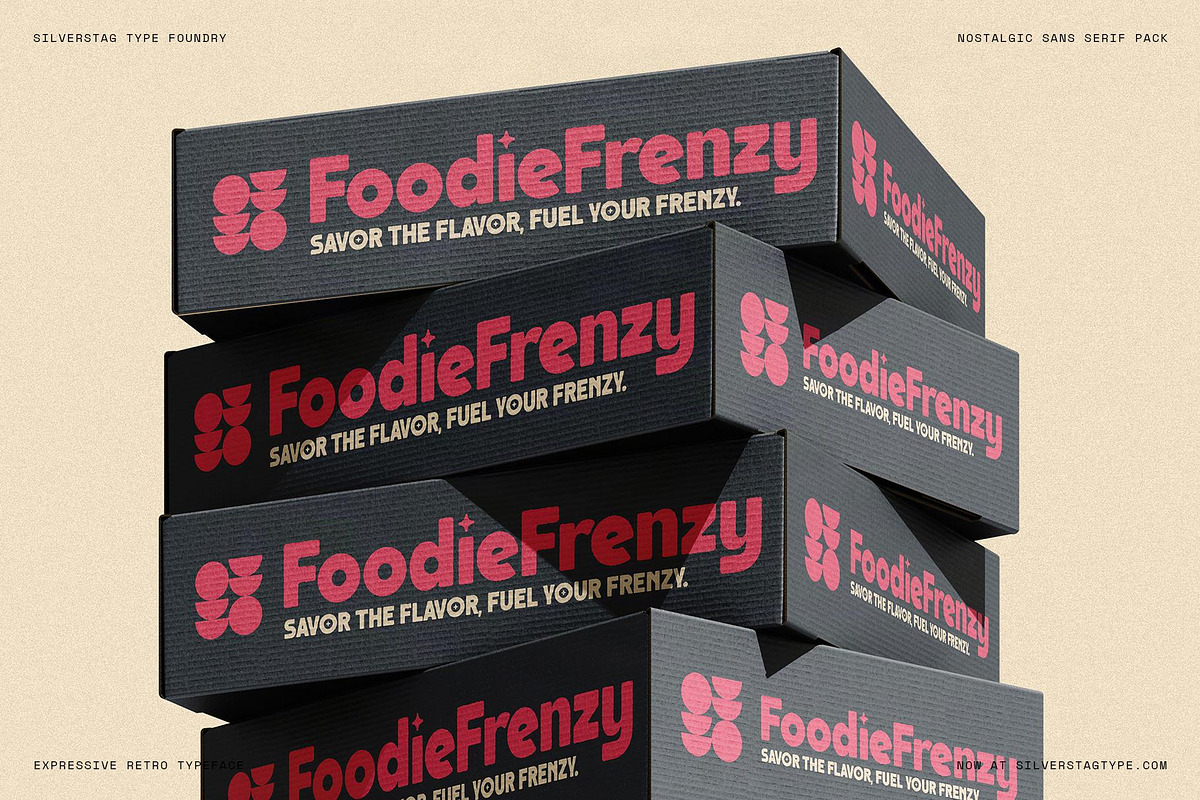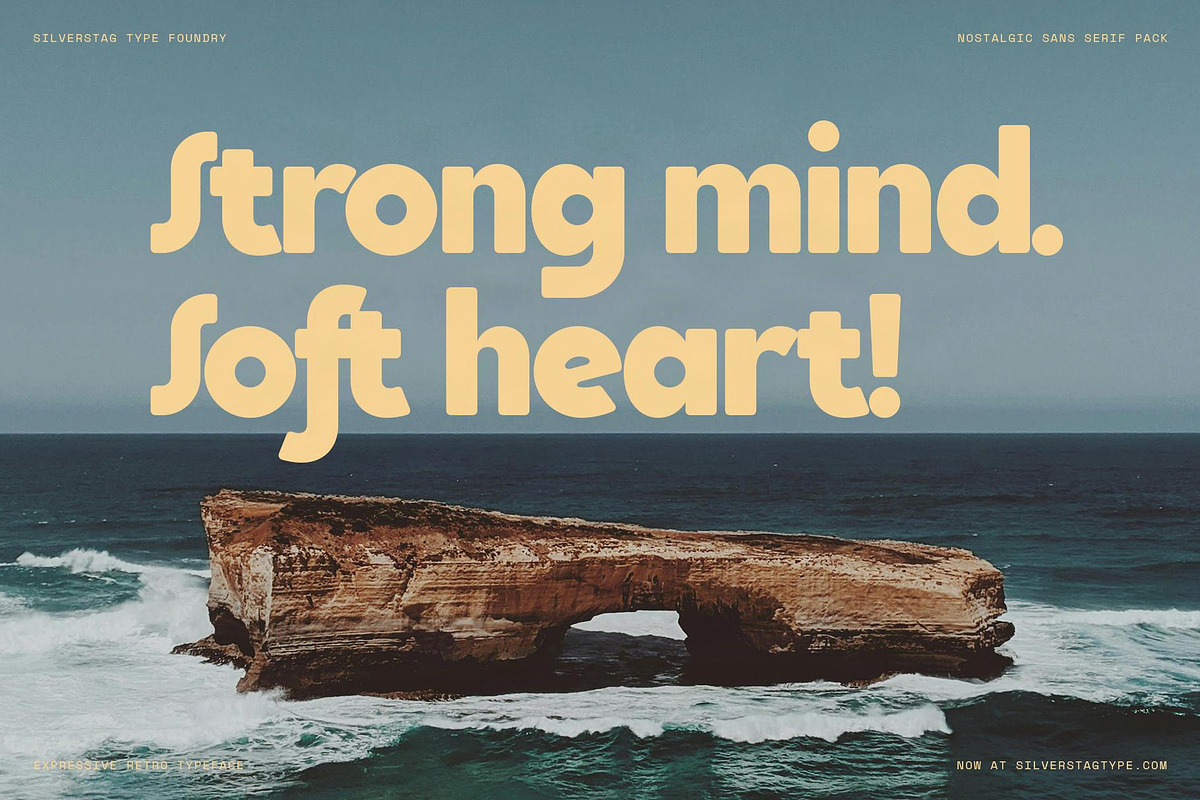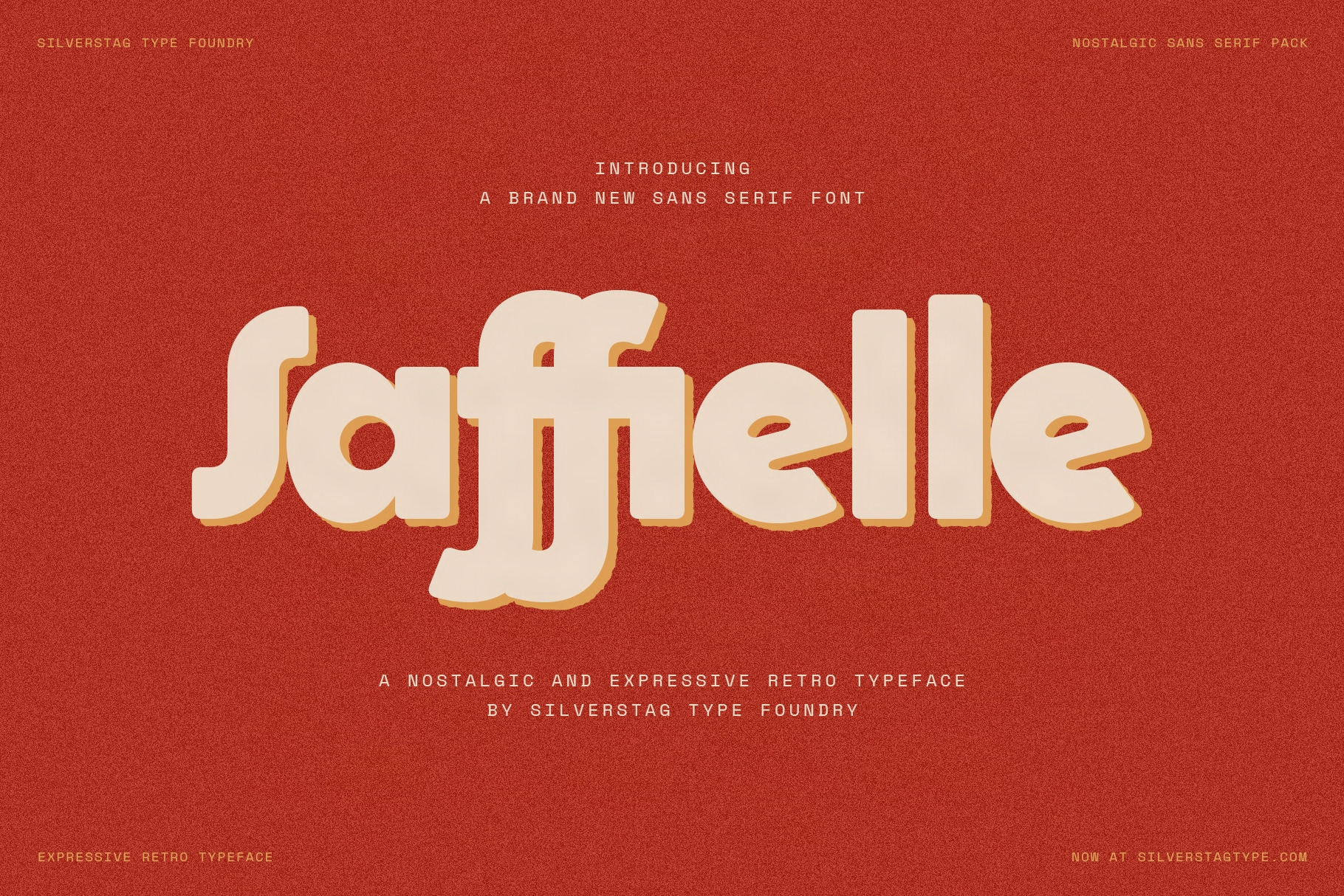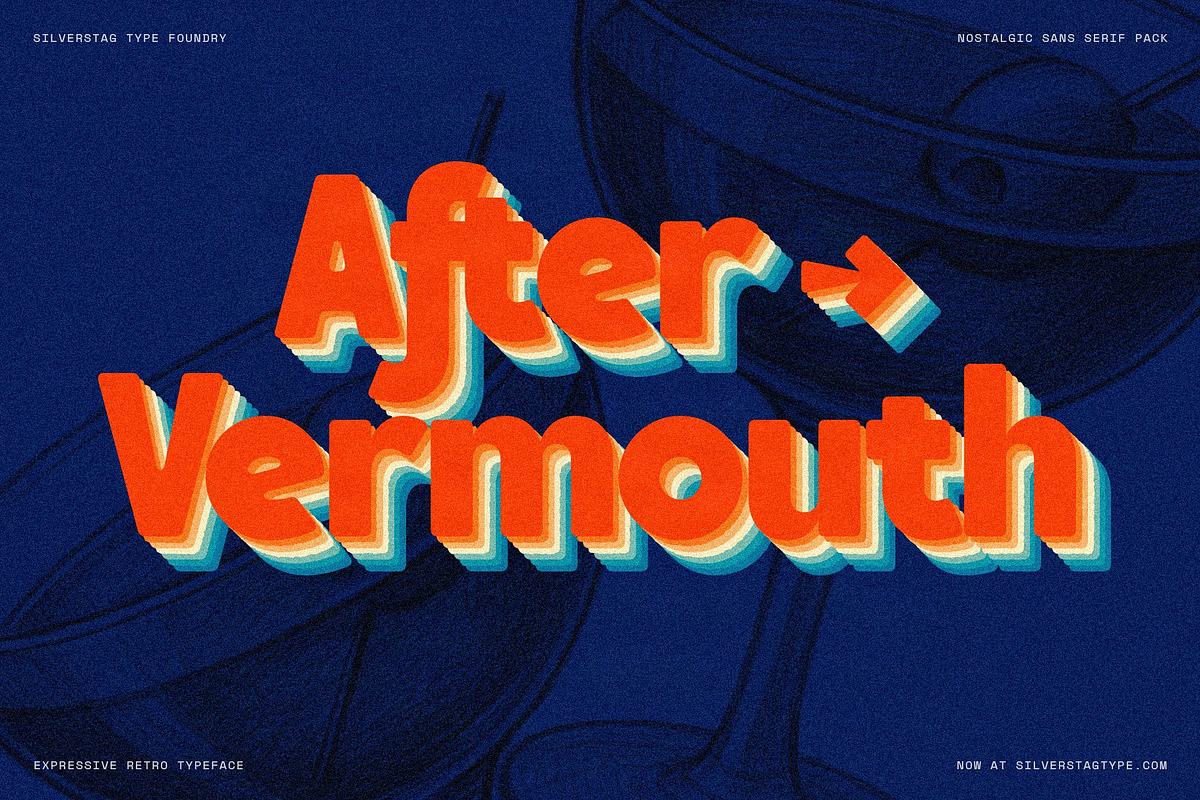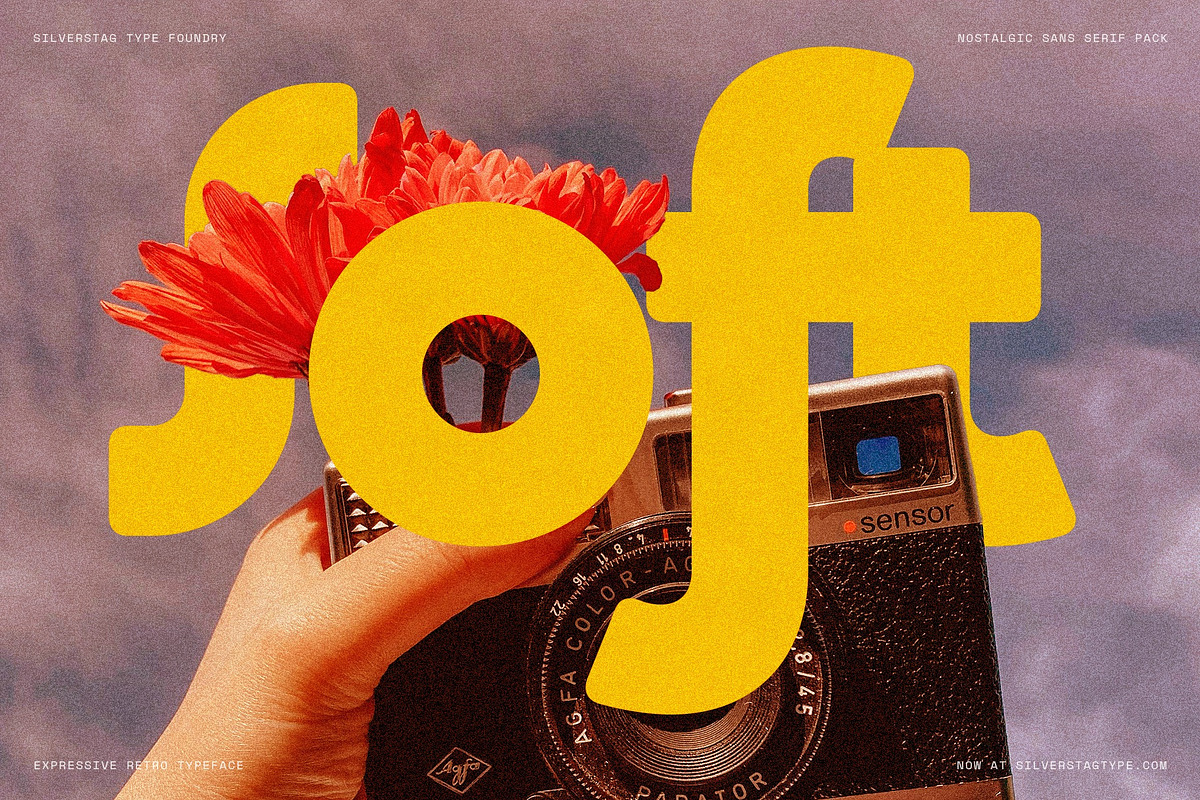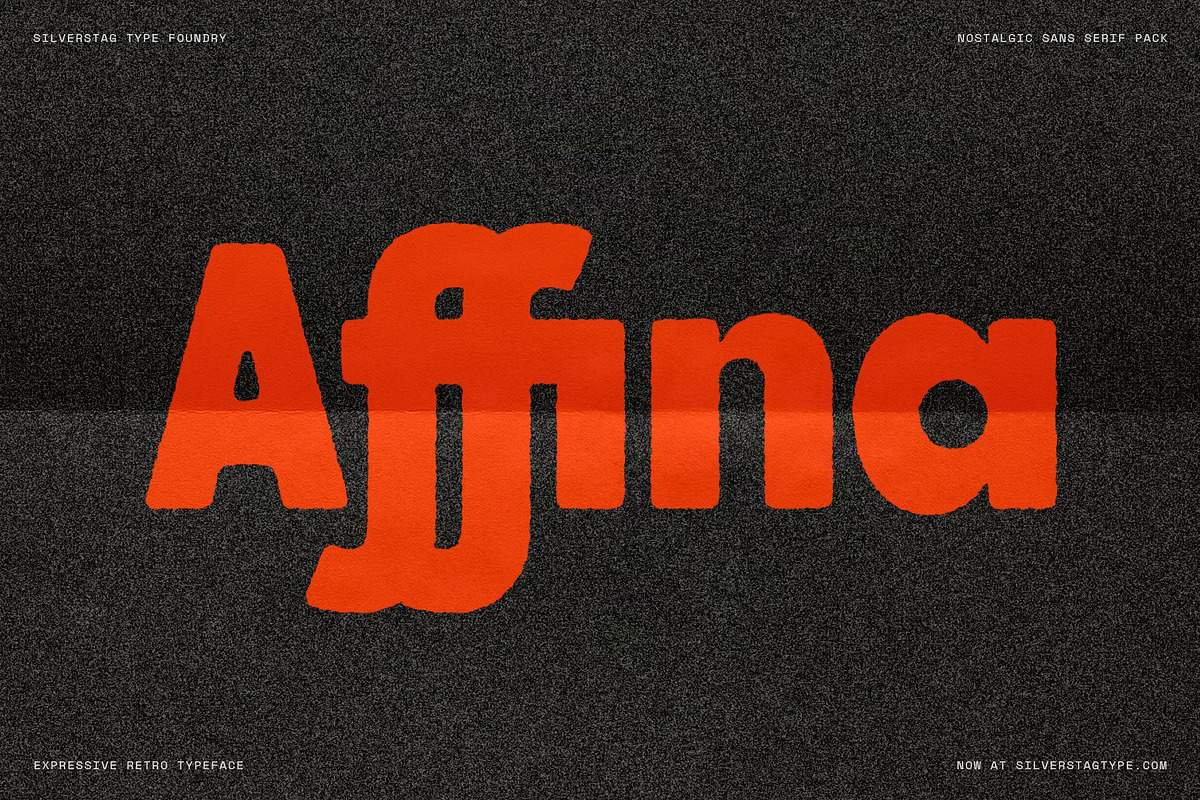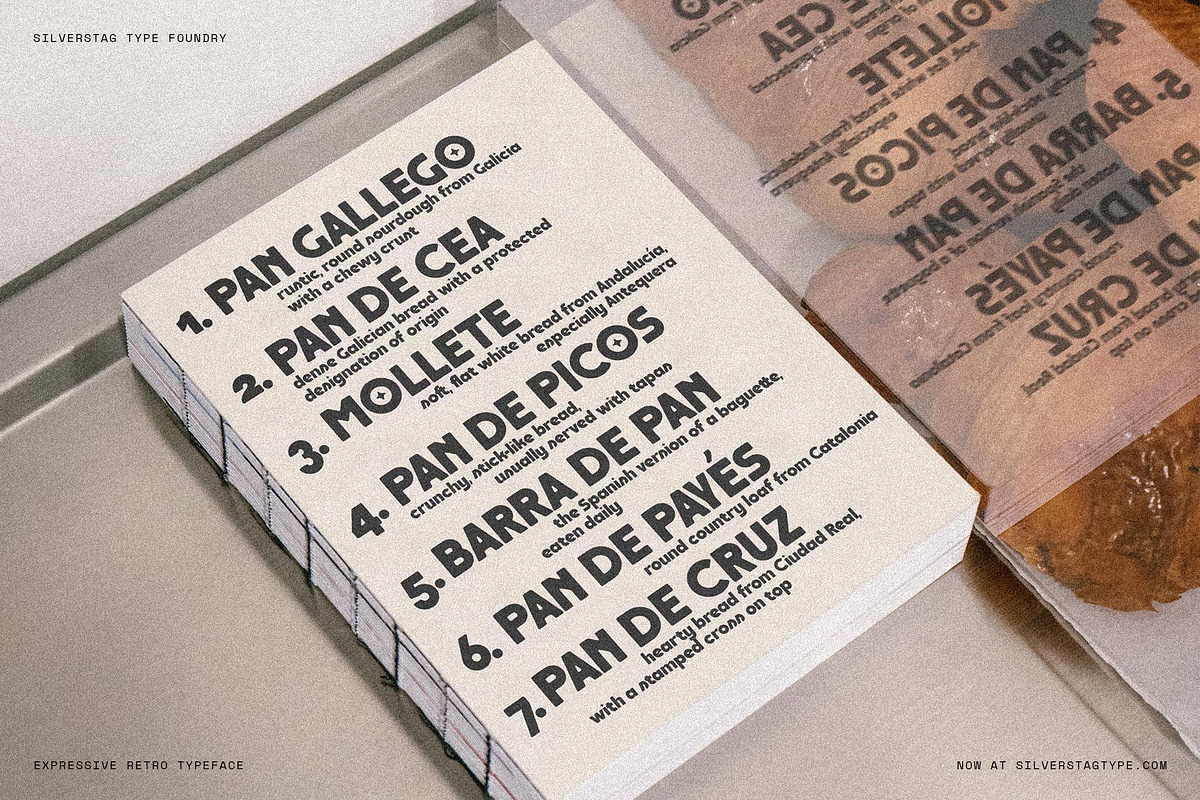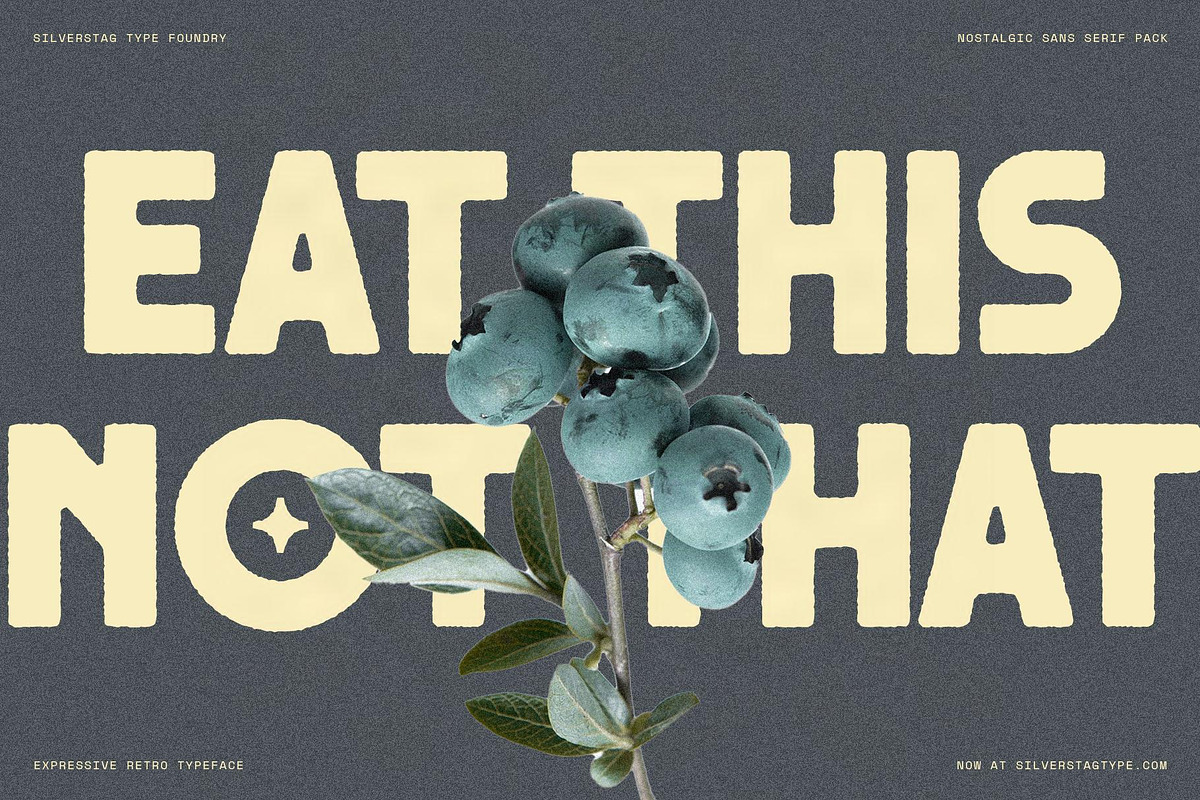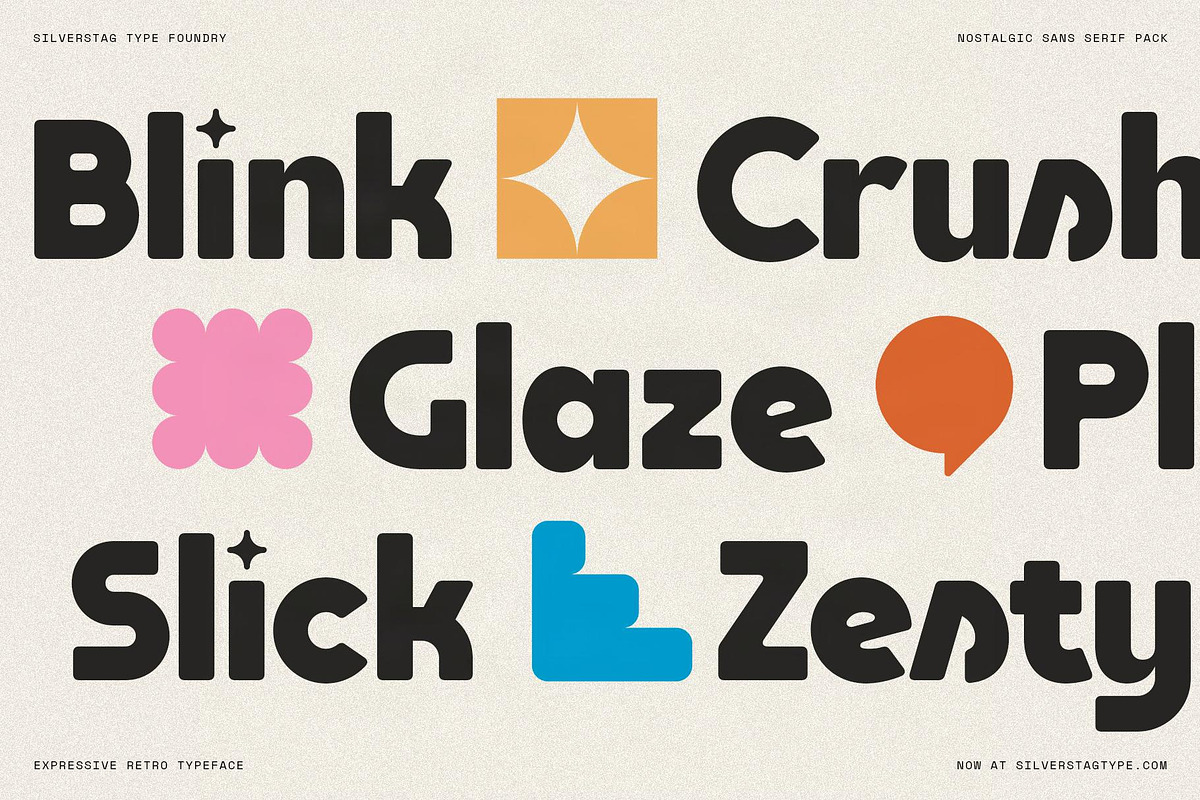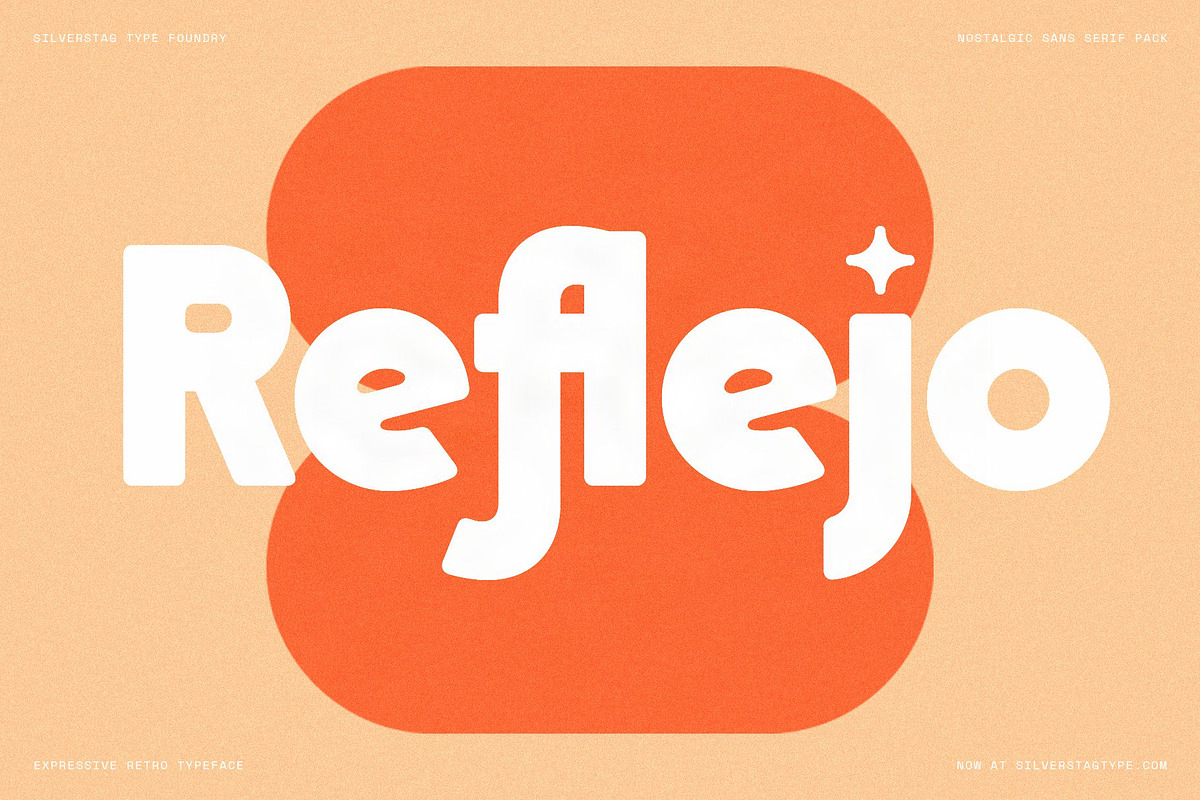
Saffielle - Bold Vintage Typeface
SLTF Saffielle is a bold, expressive sans serif typeface that blends retro soul with modern versatility. Designed for designers who crave nostalgia with a twist, Saffielle comes in two striking variants: a clean Regular version and a textured Vintage style featuring subtle rough edges for a tactile, analog look.
This typeface is packed with charm – featuring creative ligatures, alternate letterforms, and full support for over 100 languages. It’s a perfect choice for branding, packaging, editorial headlines, posters, and projects that call for a bit of attitude and warmth.
From loud typographic statements to soft vintage-inspired moments, Saffielle makes your design stand out while keeping it stylish.